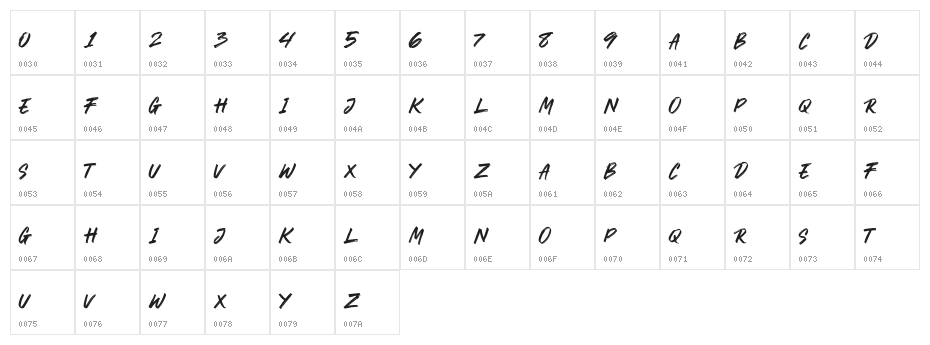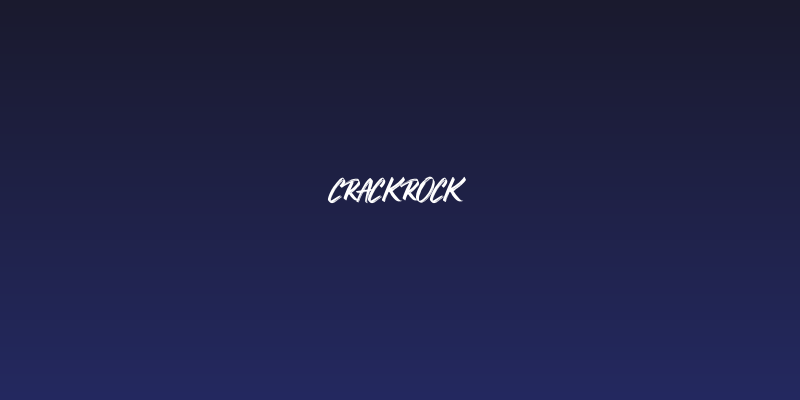
CRACKROCK Font
CRACKROCK Description
This font exudes a bold and energetic style, characterized by its brush-like strokes and dynamic slant. The uppercase letters are particularly striking, with a sense of movement and flair that suggests speed and spontaneity. The lowercase letters maintain this lively aesthetic, offering a consistent and cohesive look across all characters. Numbers are equally bold, ensuring they stand out in any context. The font's overall appearance is both modern and artistic, making it suitable for projects that require a touch of creativity and impact.
| Proposed Projects | Ideal for branding, posters, album covers, and any creative projects needing a bold statement. |